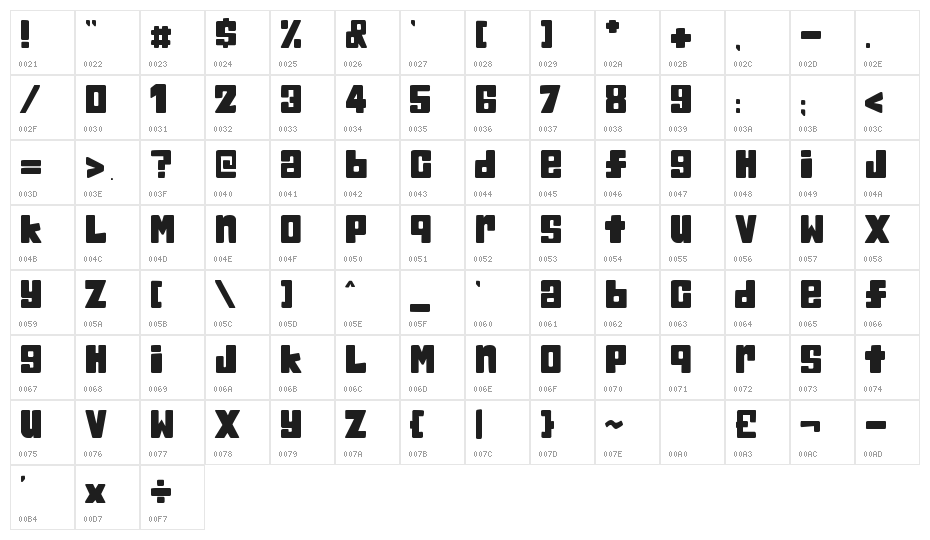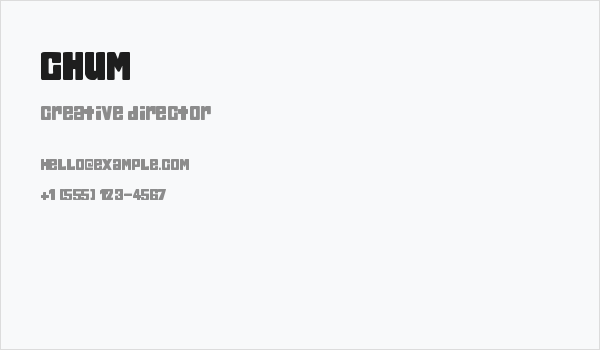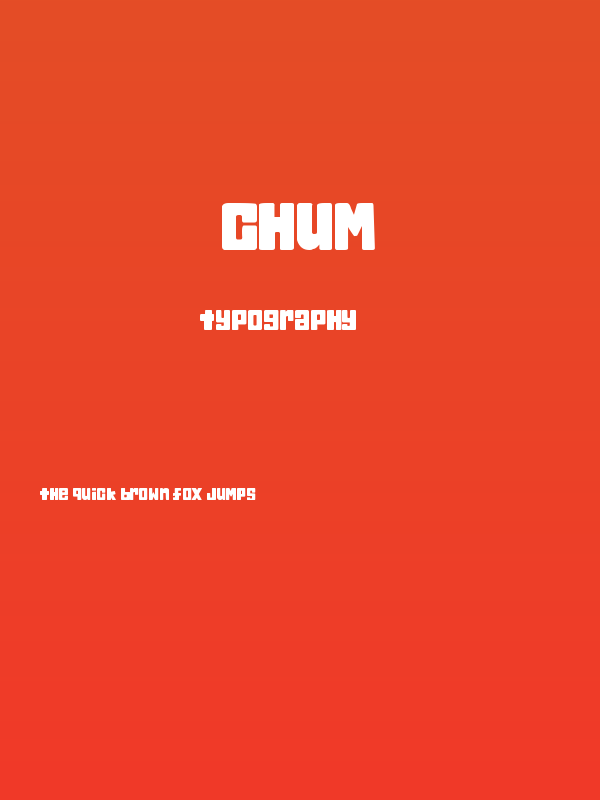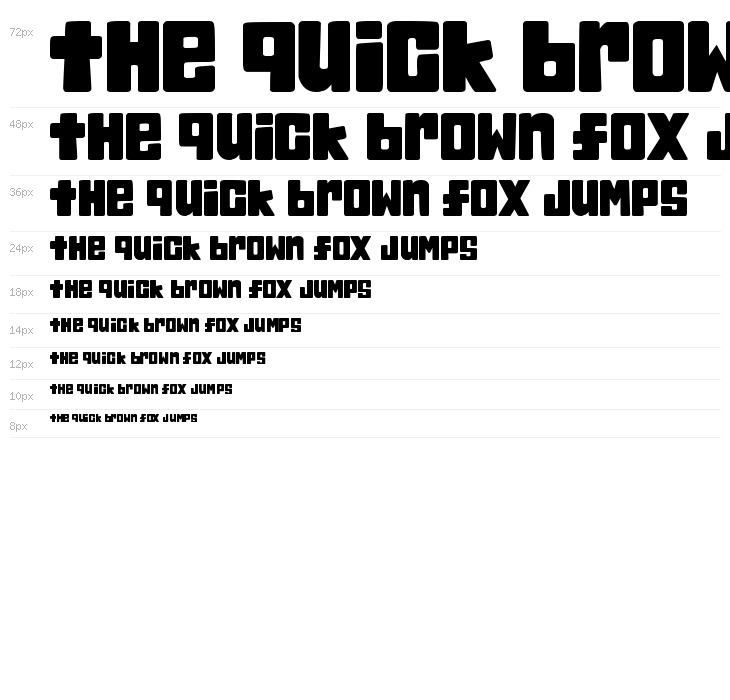
Chum Font
Chum Description
This bold and striking font features a blocky, geometric design with a strong presence. Each character is crafted with thick, uniform strokes, creating a sense of solidity and impact. The letters are slightly rounded at the corners, adding a touch of softness to the otherwise robust appearance. The font maintains a consistent weight throughout, ensuring readability and a cohesive look. Its unique style makes it ideal for attention-grabbing headlines and logos, where a bold statement is desired. The spacing between characters is tight, enhancing the compact and powerful feel of the text.
| Proposed Projects | Ideal for branding, poster design, and any project requiring a strong, memorable typeface. |